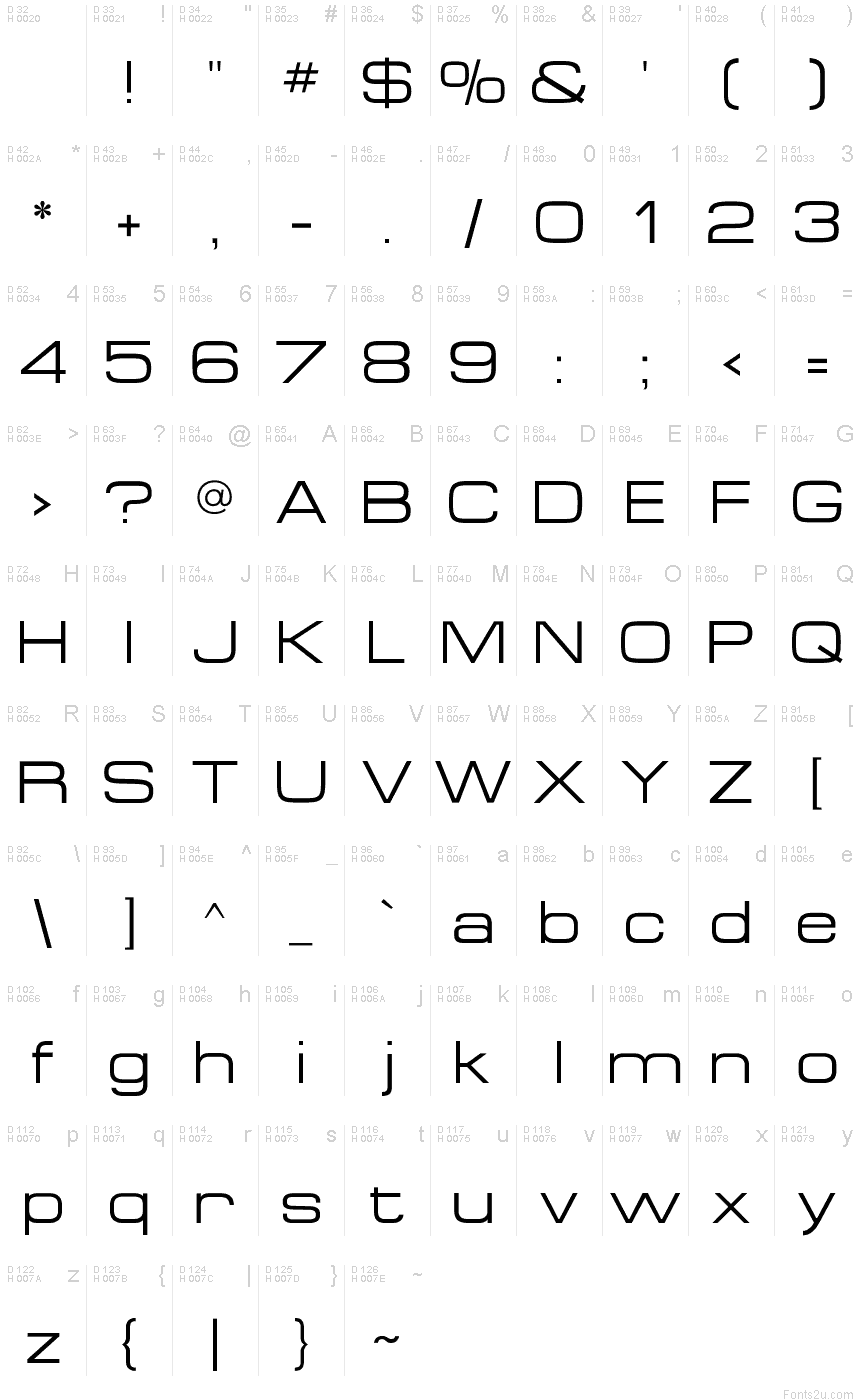
MicroExtendFLF
MicroExtendFLF by Richard A. Ware is a free extended geometric sans serif with the spare look of early digital typography. Its very thin, even strokes form broad letters, and the rounded shapes are drawn like softened rectangles. The generous width gives the lettering a calm, technical profile.
Used as an interface-style title, it can set the scene for software branding, science-fiction posters, and electronic music artwork. Its clearest use is technology logos, where the low, wide construction suggests precision.